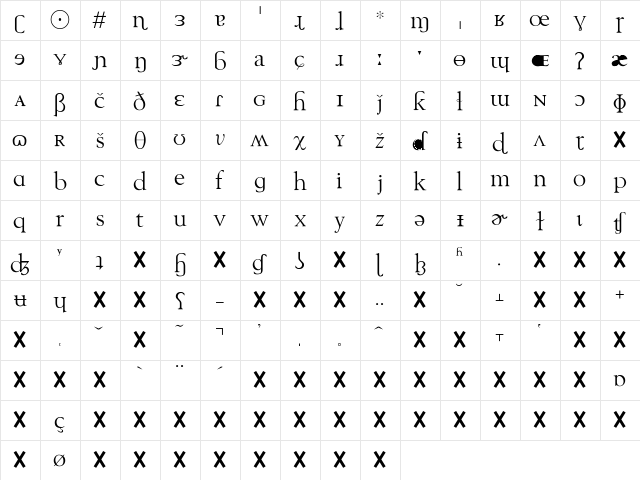
Sondout Regular
Design Context for Sondout Typeface
Sondout takes a measured approach to typography — its balanced proportions and neutral character make it a reliable workhorse for both digital and print work.